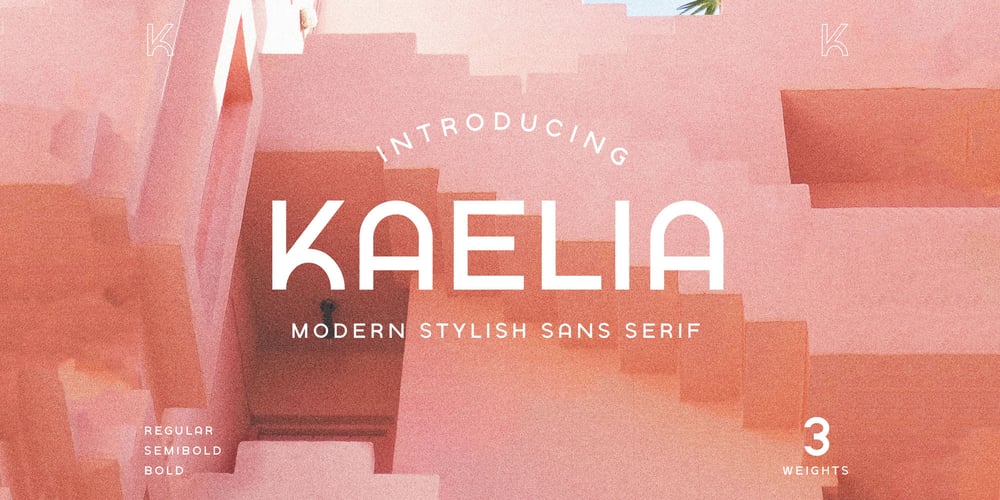
CCS Kaelia Font Family was designed by Kurt Harahap and published by Creative Corner Studio. CCS Kaelia contains 3 styles and family package options. Introducing CCS Kaelia Sans serif, a Bold Minimalist Elegant Modern vintage font with beautiful ligatures, tons of special alternative glyphs, ornament and multilingual support. It’s a very versatile font that works great in large and small sizes. Perfect for branding projects, Logo design, Clothing Branding, product packaging, magazine headers, or simply as a stylish text overlay to any background image.